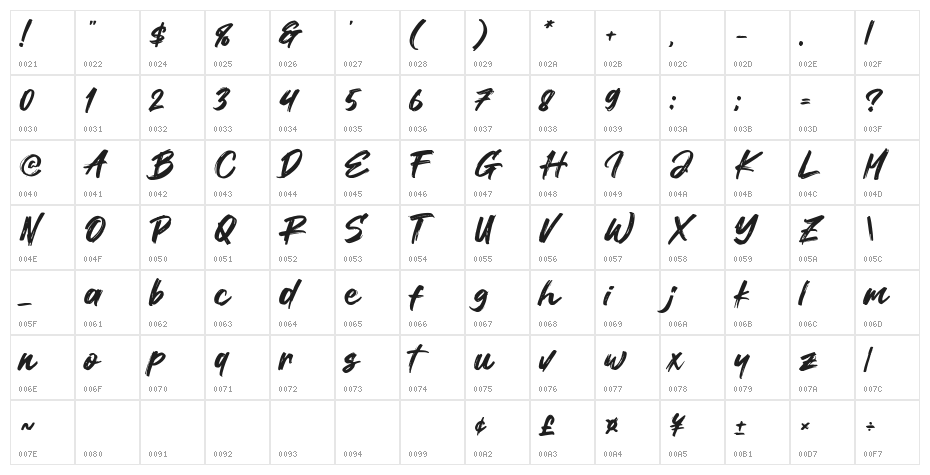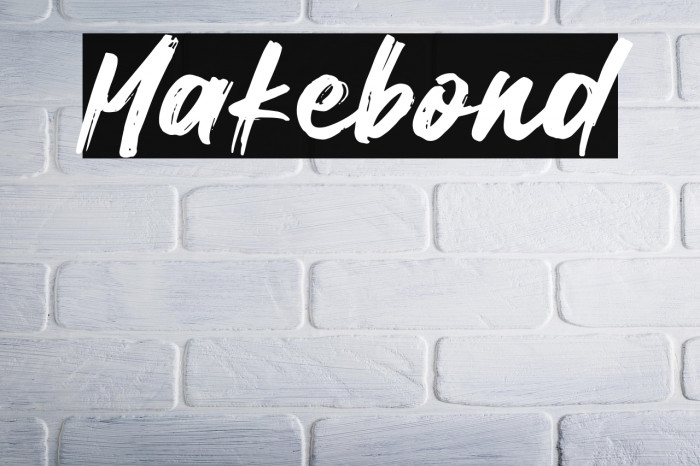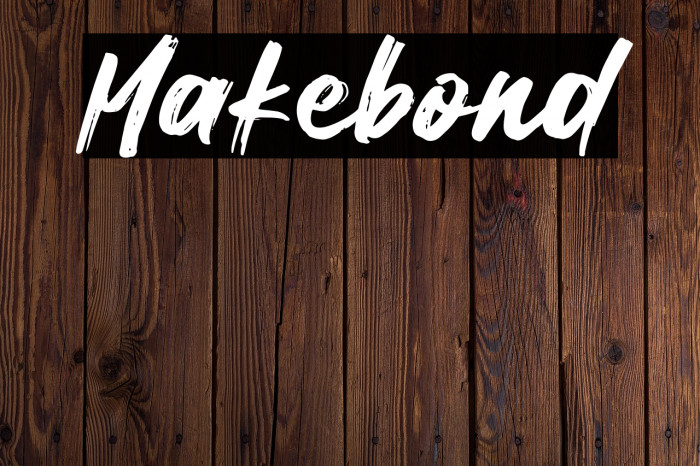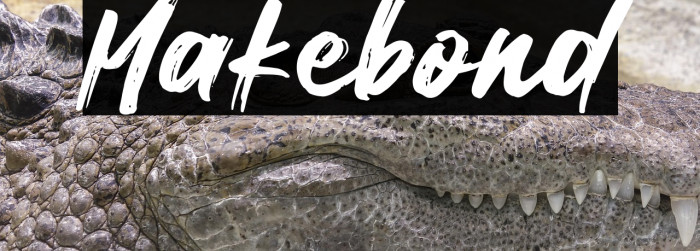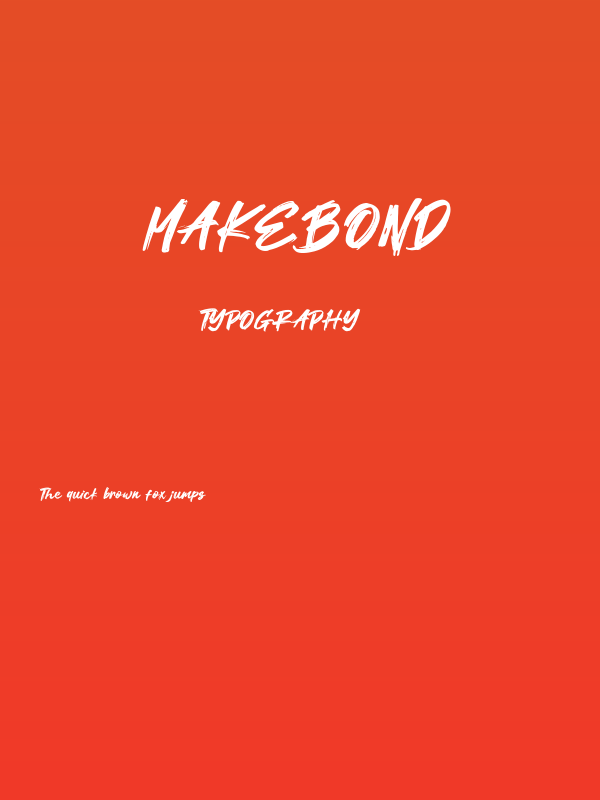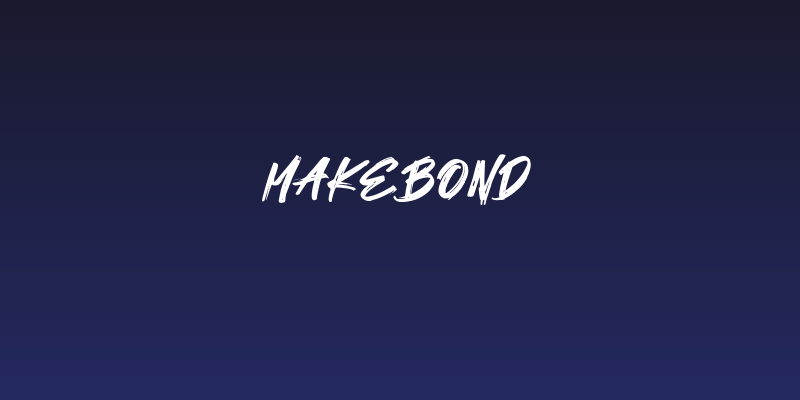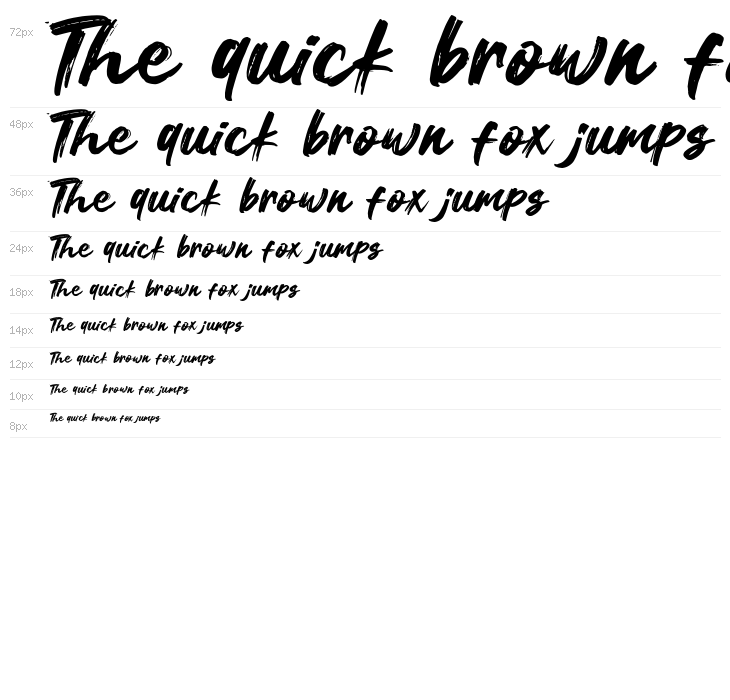
Makebond Font
Makebond Description
This font features a bold, expressive style with a brush-like texture that gives it a dynamic and energetic appearance. The strokes are thick and uneven, creating a sense of movement and spontaneity. The uppercase and lowercase letters maintain a consistent flow, while the numbers and special characters integrate seamlessly with the overall design. Its hand-drawn aesthetic makes it ideal for projects that require a personal touch or a creative flair.
| Proposed Projects | Ideal for branding, posters, social media graphics, and any project that requires a bold, artistic touch. |